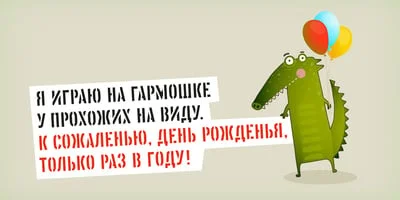
Vtg Stencil US No 72 Font
Vtg Stencil US No 72 Font is perfect for military-themed designs, vintage war memorabilia, industrial branding, cargo shipping labels, military surplus merchandise, historical documentaries, tactical gear packaging, army base signage, vintage americana projects, and any designs that need authentic military stencil character with historical accuracy.
What makes Vtg Stencil US No 72 Font exciting is its authentic reproduction of classic US military stencil lettering that captures the no-nonsense functionality and historical significance of wartime typography. This distinctive typeface features precise cutouts and robust letterforms designed for durability and quick application, embodying the practical efficiency demanded by military operations. The font's historical authenticity makes it perfect for projects seeking to honor military heritage and communicate strength, reliability, and American industrial heritage.
Vtg Stencil US No 72 Font family includes military-grade variations featuring regular, bold, condensed, and weathered versions. The font family also contains authentic stencil breaks, military symbols, and period-appropriate ornaments that enhance historical accuracy. Additional options include distressed variants that simulate aging and wear, along with special character sets designed for maximum authenticity in vintage military applications.
Honor history with Vtg Stencil US No 72 Font and bring authentic military heritage to your creative projects with typography that stands at attention. This historically accurate typeface delivers commanding presence across all applications, ensuring your message communicates with the strength and reliability of military precision. Download Vtg Stencil US No 72 Font today and salute the past with typography that preserves the legacy of American military design traditions, creating powerful connections with audiences who value heritage and authentic historical character.